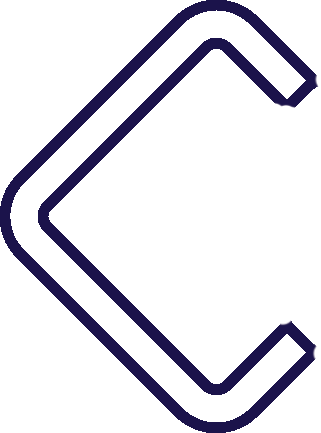
Look for a font similar to the image, I have an assignment to create an image only using typography, building a key and the sharp points of the image will be beneficial.